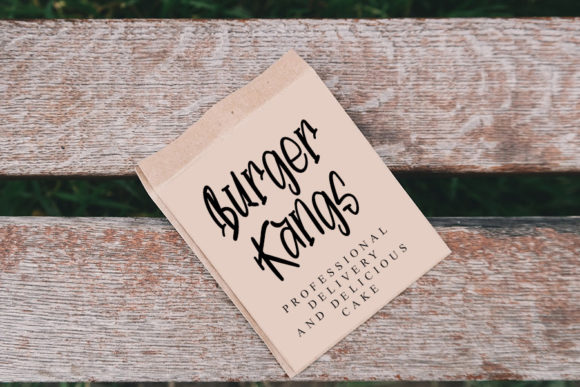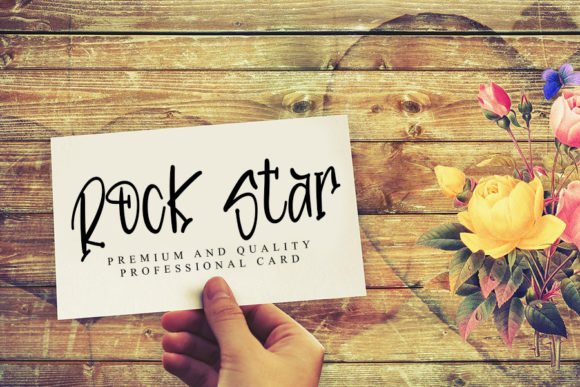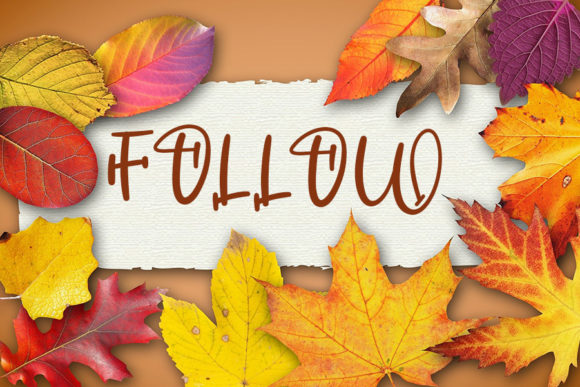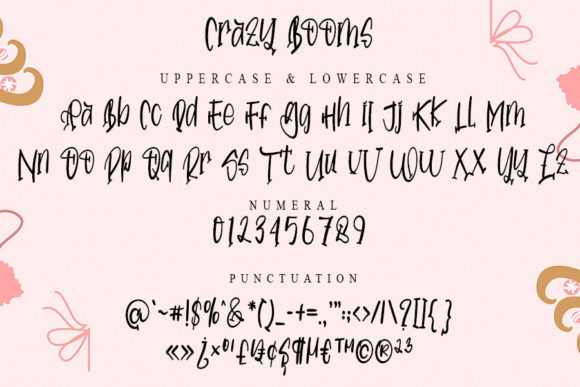
Crazy Booms Font: The Ultimate Display Font for Creative Projects
Are you tired of using the same old fonts for your creative projects? Look no further than Crazy Booms Font, a smart, quirky, and fun display font that’s sure to make your designs stand out. With its unique and playful style, Crazy Booms is the perfect addition to any project, from crafting and DIY tutorials to graphic design and digital art.
What is Crazy Booms Font?
Crazy Booms Font is a display font designed to add a touch of whimsy and personality to your creative projects. Its quirky and fun design makes it perfect for projects that require a bit of flair, such as titles, headings, and captions. The font is highly versatile and can be used for a wide range of applications, from digital art and graphic design to crafting and DIY tutorials.
Key Features of Crazy Booms Font
- Smart and Quirky Design: Crazy Booms Font features a unique and playful design that’s sure to grab attention.
- Fun and Creative: The font’s quirky style makes it perfect for projects that require a bit of personality and flair.
- Highly Versatile: Crazy Booms Font can be used for a wide range of applications, from digital art and graphic design to crafting and DIY tutorials.
- Easily Customizable: The font can be easily customized to fit your project’s needs, from adjusting the size and color to adding effects and textures.
Why Use Crazy Booms Font?
So why should you use Crazy Booms Font for your creative projects? Here are just a few reasons:
- Adds Personality to Your Designs: Crazy Booms Font adds a touch of personality and whimsy to your designs, making them stand out from the crowd.
- Perfect for Creative Projects: The font’s quirky style makes it perfect for creative projects, such as crafting and DIY tutorials, digital art, and graphic design.
- Easily Matches with Other Fonts: Crazy Booms Font can easily be matched with a wide range of other fonts, making it perfect for projects that require a unique and cohesive look.
How to Use Crazy Booms Font
Using Crazy Booms Font is easy. Here are a few tips to get you started:
- Use it as a Title Font: Crazy Booms Font is perfect for titles and headings, adding a touch of personality and flair to your designs.
- Add it to Your Digital Art: The font’s quirky style makes it perfect for digital art, adding a unique and playful touch to your creations.
- Use it for Crafting and DIY Tutorials: Crazy Booms Font is perfect for crafting and DIY tutorials, adding a touch of personality and whimsy to your instructions and guides.
Tips and Tricks for Using Crazy Booms Font
Here are a few tips and tricks for using Crazy Booms Font:
- Experiment with Different Sizes and Colors: Don’t be afraid to experiment with different sizes and colors to find the perfect look for your project.
- Add Effects and Textures: Add effects and textures to your text to give it a unique and personalized look.
- Mix and Match with Other Fonts: Don’t be afraid to mix and match Crazy Booms Font with other fonts to create a unique and cohesive look.
Crazy Booms Font is a smart, quirky, and fun display font that’s perfect for creative projects. With its unique and playful style, it’s sure to add a touch of personality and whimsy to your designs. Whether you’re a designer, crafter, or DIY enthusiast, Crazy Booms Font is the perfect addition to your creative toolkit. So why wait? Download Crazy Booms Font today and start creating unique and eye-catching designs that stand out from the crowd!